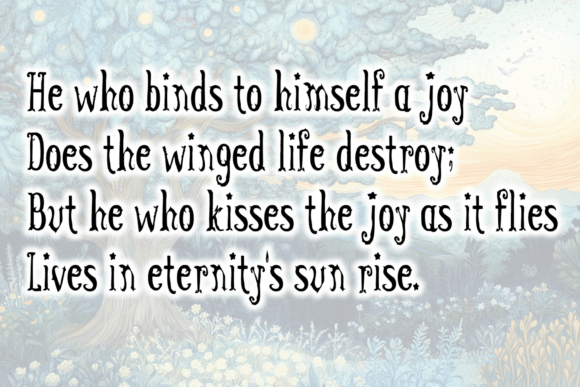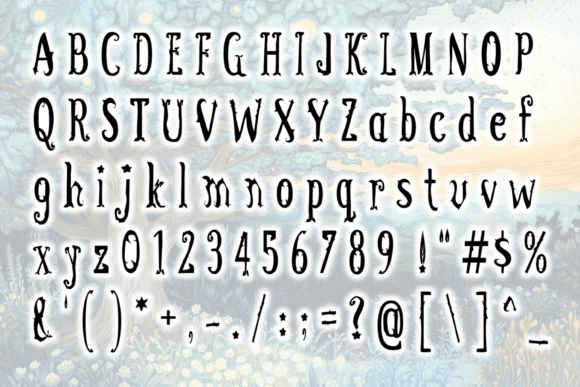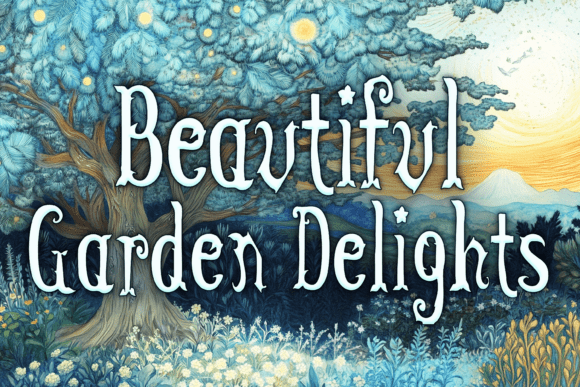
Introduction to Beautiful Garden Delights Font
Step into a world of enchantment with Beautiful Garden Delights, a whimsical and nature-inspired font perfect for creative projects.
This charming typeface features elegant letterforms with delicate, organic details reminiscent of blooming flowers and rustic woodlands Ideal for fantasy designs, fairy tale book covers, greeting cards, invitations, branding, and DIY crafts, Beautiful Garden Delights brings a touch of magic to any design.
Why Choose Beautiful Garden Delights Font?
Beautiful Garden Delights Font offers exceptional quality and versatility, making it a valuable addition to your design toolkit. Whether you’re creating for personal projects or commercial use, Beautiful Garden Delights Font delivers professional results.